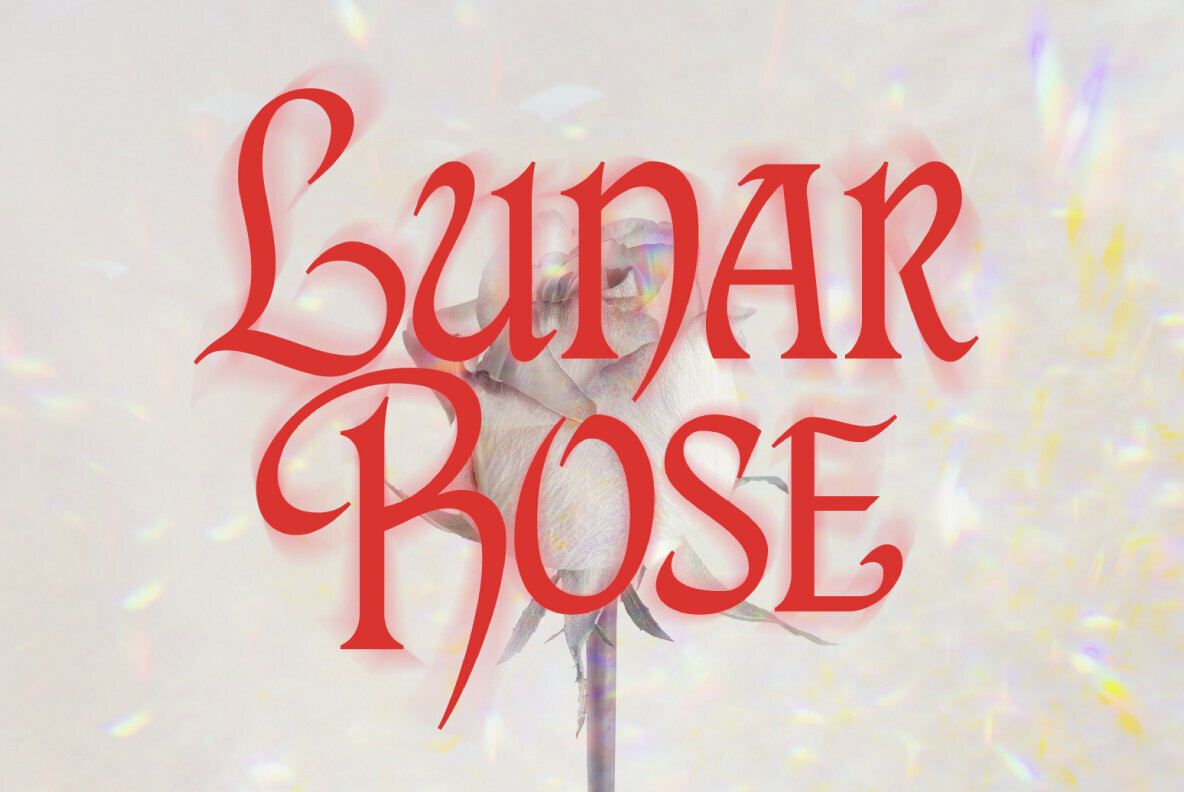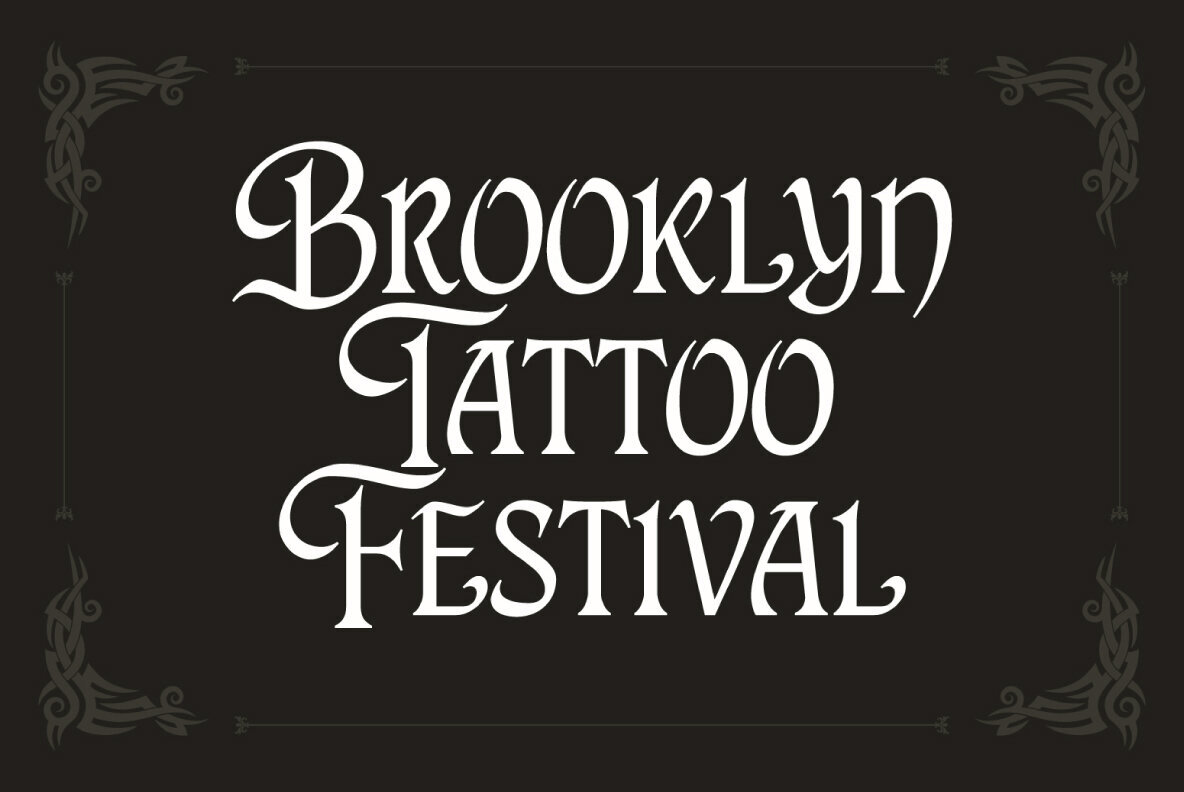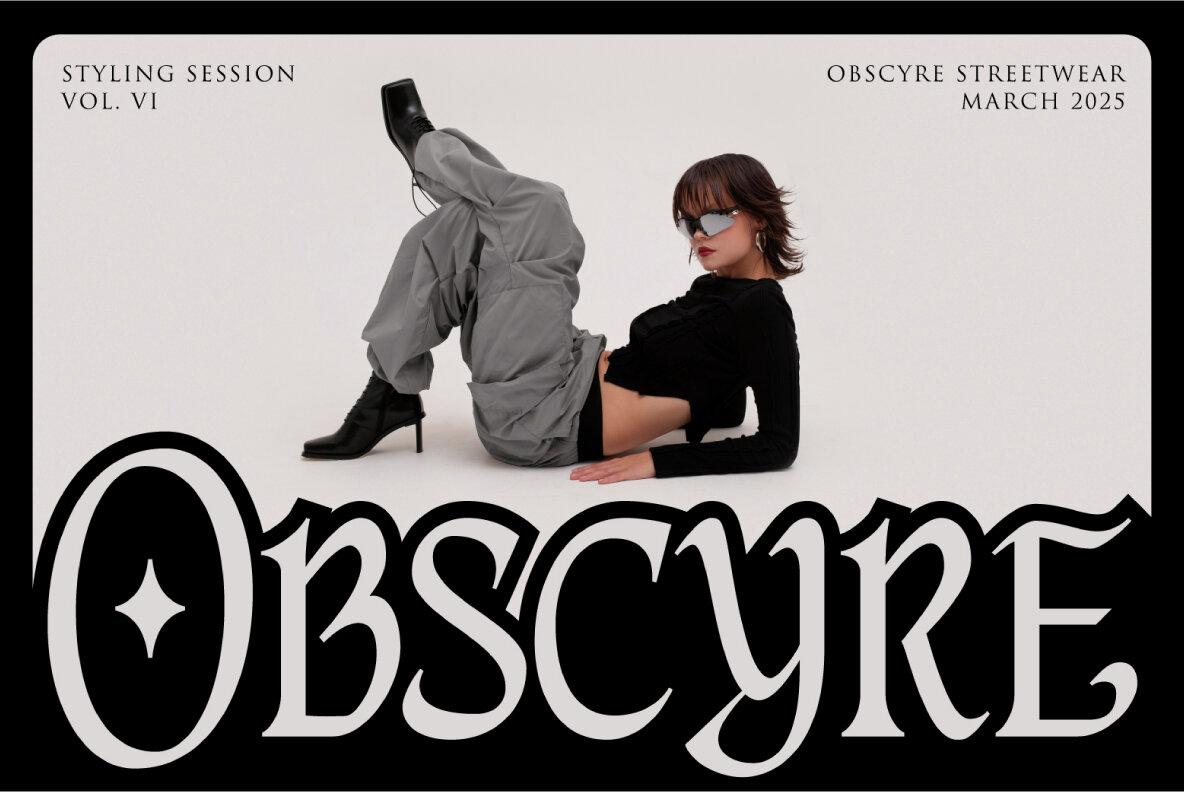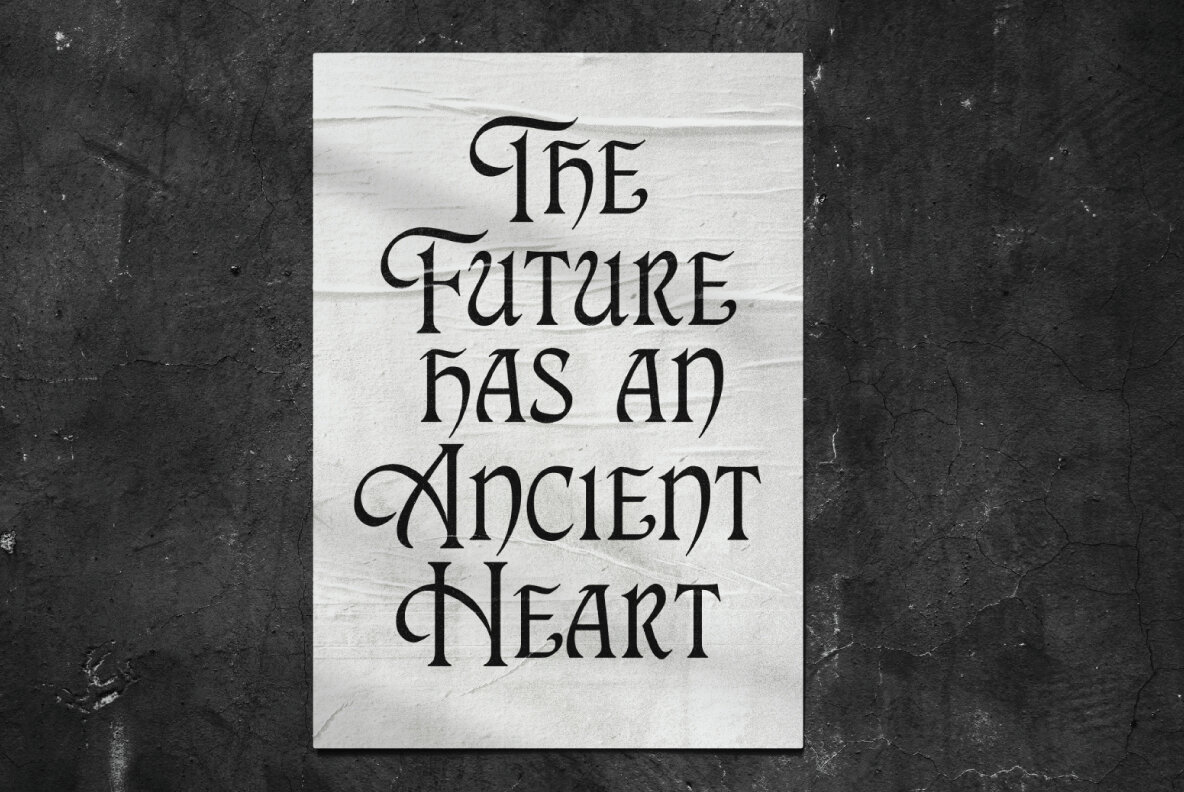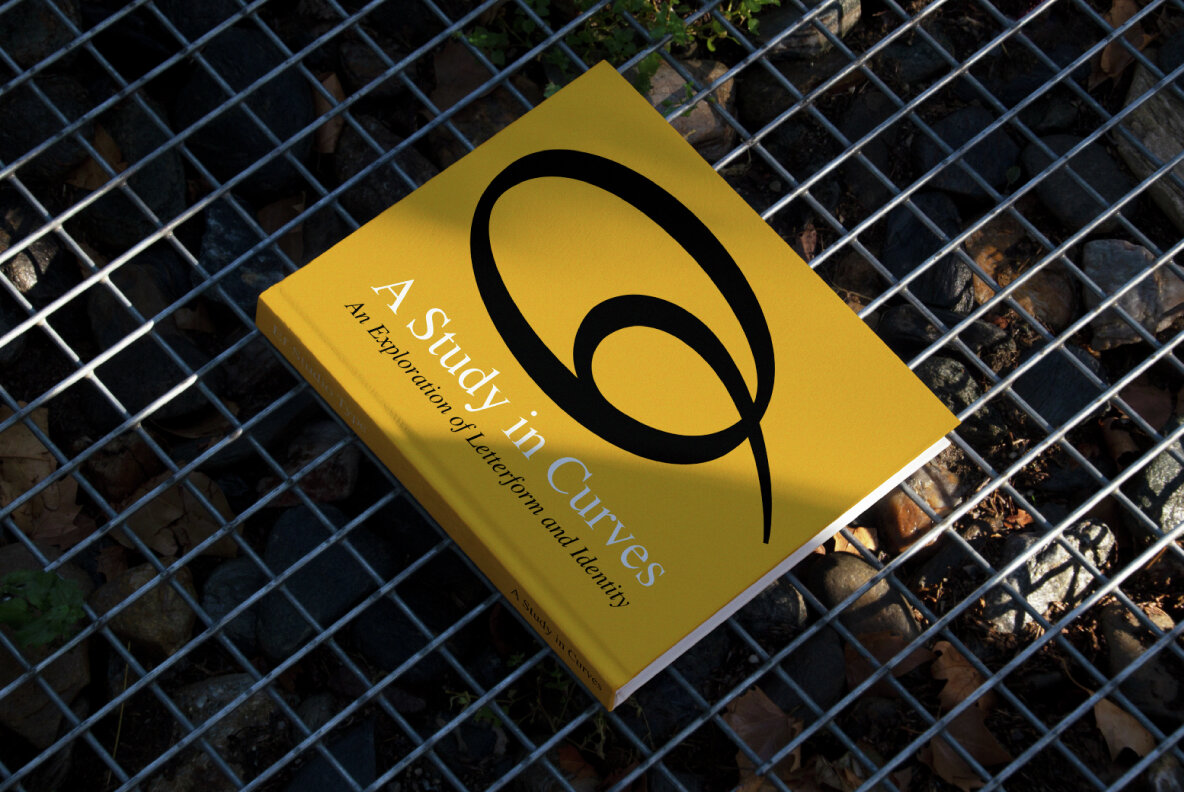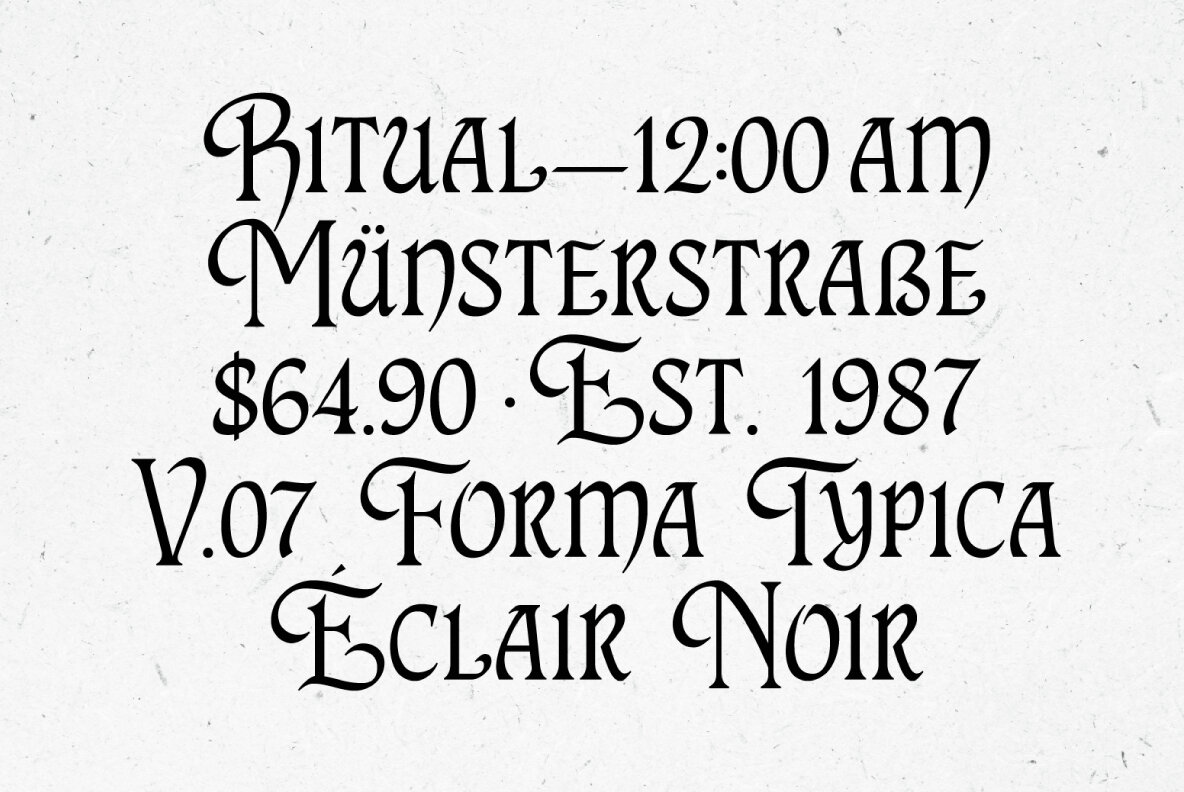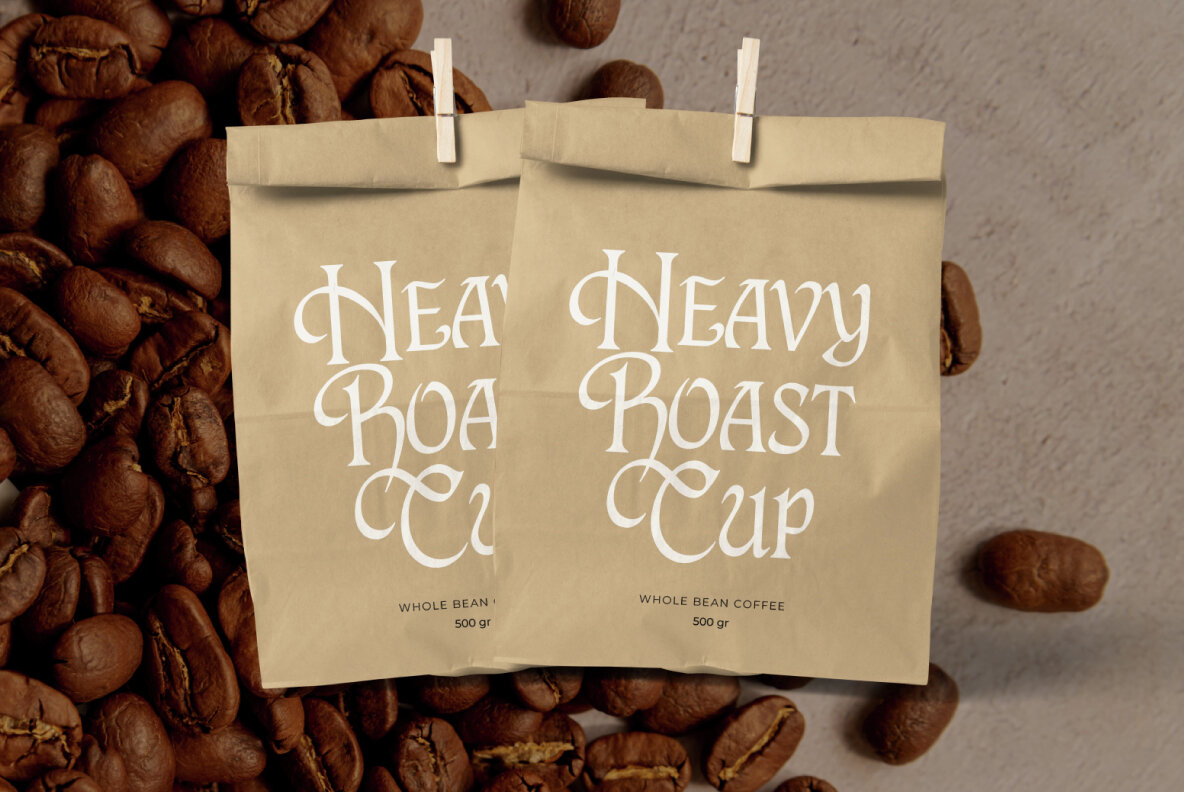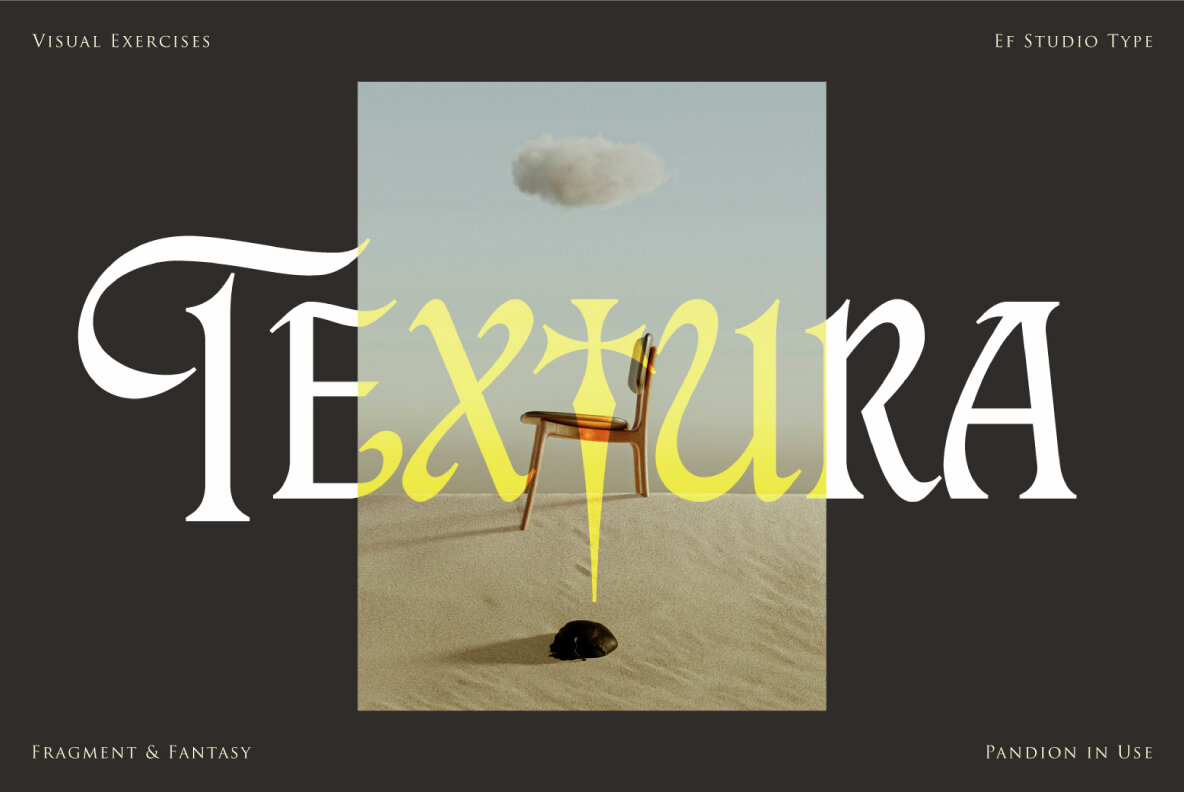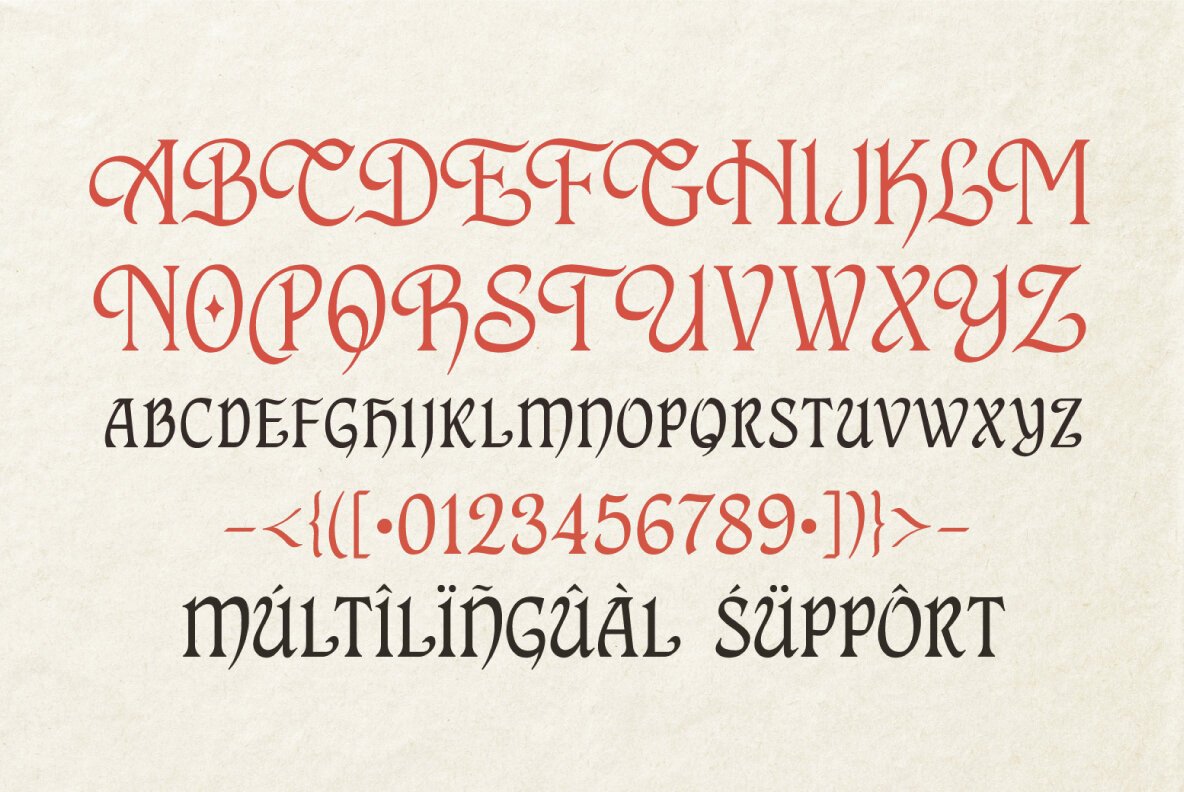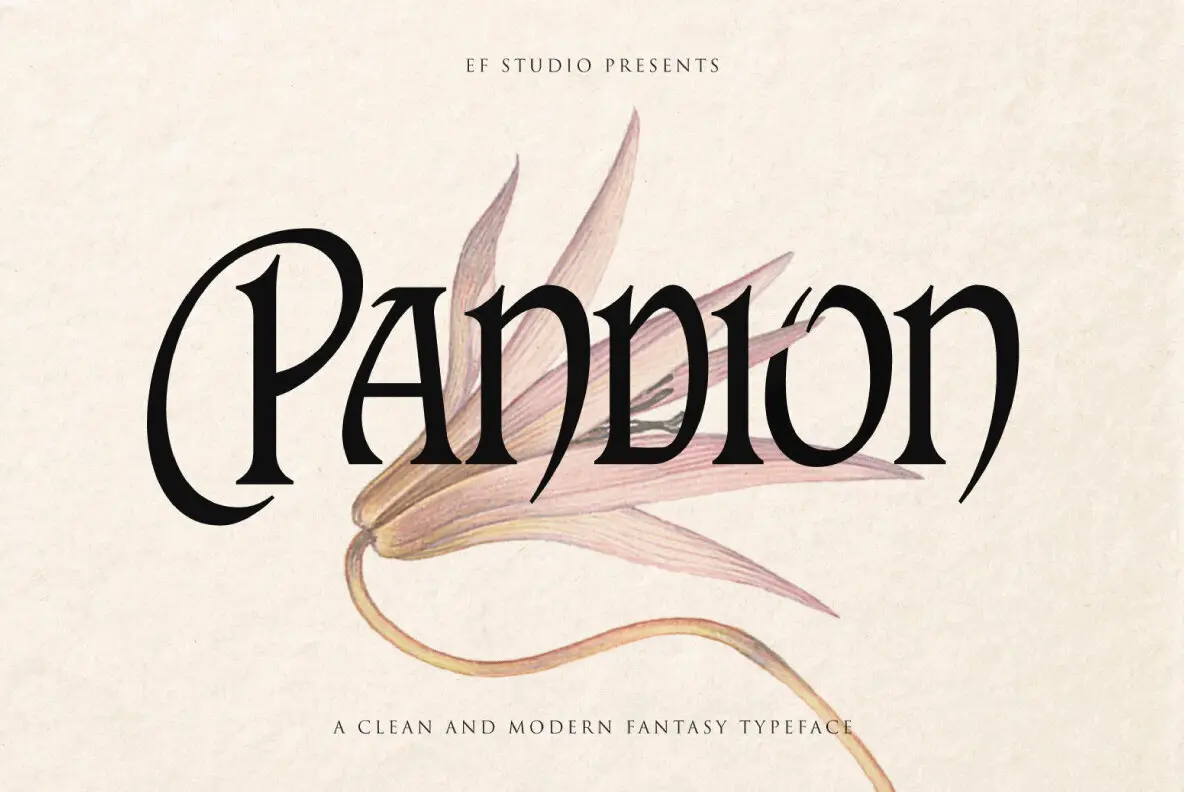
Pandion Font
Pandion
Introducing Pandion, a unique typeface that gracefully merges clean, modern lines with an air of magical mysticism. Its sharp serifs and dramatic curves reminiscent of medieval calligraphy lend a distinct and refined contemporary flair. With high contrast strokes and unique letterforms, Pandion is perfectly suited for fantasy titles, book covers, and game logos, offering a bold yet elegant typographic voice. Whether crafting epic adventures or enchanting realms, Pandion conveys grandeur and storytelling with every word. To accommodate a diverse range of creative projects, Pandion includes extensive multilingual support. This feature ensures that your design resonates with audiences across different languages. Supported Characters:Pandion: A Typeface of Elegance and Mystique